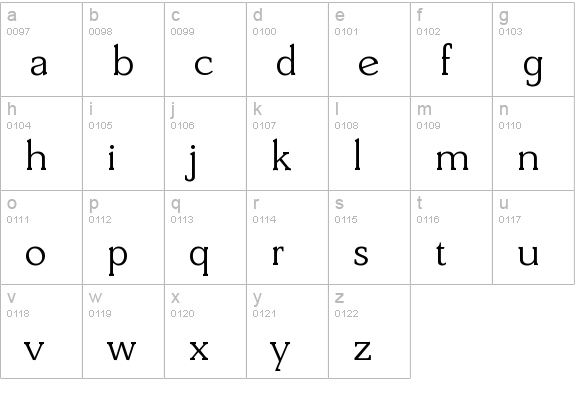
DerringerSerial-Light-Regular is a refined, elegant variant in the DerringerSerial typeface family \xE2\x80\x94 well suited to elegant body text, refined sub-headings, and luxury branding.
DerringerSerial-Light-Regular font is a sleek and modern typeface that exudes elegance and sophistication. With its clean lines and sharp edges, this font is perfect for creating professional and stylish designs. Whether you're working on a branding project, a website, or a print design, DerringerSerial-Light-Regular is sure to make a lasting impression. The best part? This amazing font is available for free download at FontsMarket.com. So go ahead and add DerringerSerial-Light-Regular to your font collection today and take your designs to the next level!